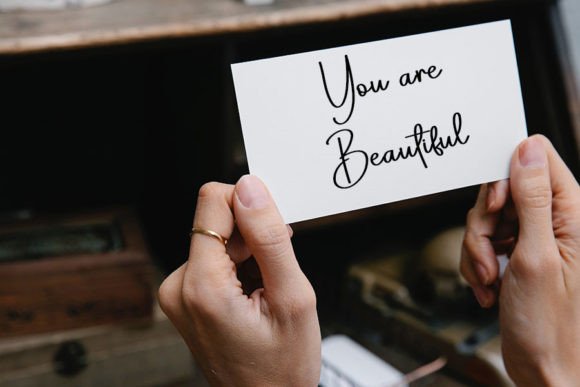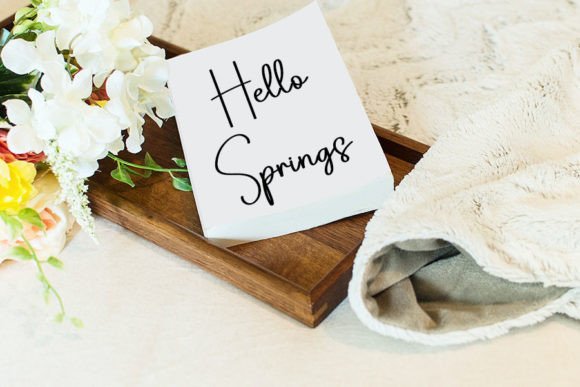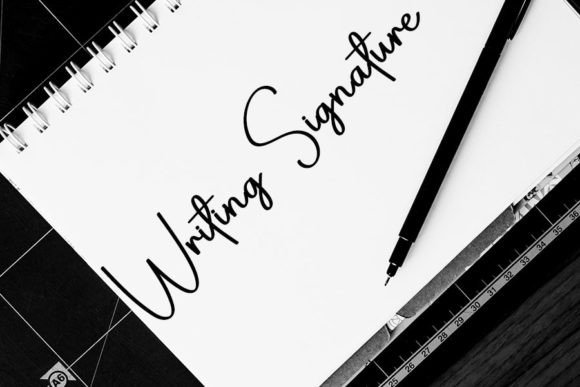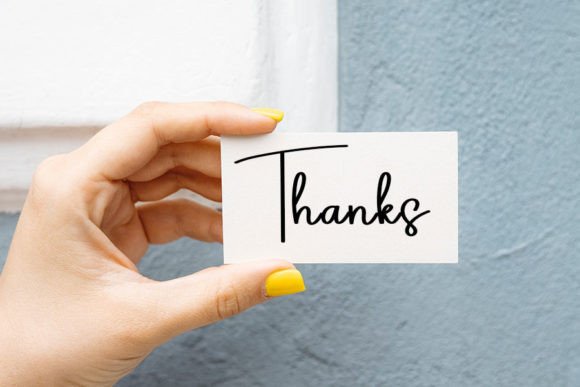
Sublimation Font
About Sublimation Font
SublimationFont is a simple handwritten script that combines friendliness with natural charm. With clean strokes and a casual rhythm, this typeface brings warmth and personality to both personal and professional projects. Because of its versatile design, Sublimation Font is perfect for crafts, greeting cards, invitations, posters, logos, and branding.
A Simple Handwritten Typeface with Friendly Appeal
Handwritten fonts are admired for their individuality, and Sublimation Font highlights this with approachable strokes and neat structure. Its smooth rhythm ensures readability, while its casual curves add personality. Moreover, its natural style adapts seamlessly to both modern and traditional layouts. As a result, this typeface is a dependable option for designers who want creativity with simplicity.
For stationery and personal projects, Sublimation Font is a wonderful choice. For example, it can turn a wedding invitation into a keepsake full of charm. In addition, it works beautifully for thank-you notes, seasonal greetings, and birthday cards. Because of its friendly flow, every design feels heartfelt, stylish, and unique.
A Script Typeface for Logos and Branding
Brands and professionals searching for a versatile handwritten script can rely on Sublimation Font. It adds individuality and warmth to logos, labels, and product packaging. Furthermore, on social media, it brings originality to posts, banners, and promotional designs. When paired with minimalist sans serif fonts, Sublimation Font achieves balance between professionalism and creativity.
Another advantage of Sublimation Font is its adaptability across mediums. In print, it works beautifully on brochures, posters, magazines, and merchandise. Digitally, it elevates websites, blogs, and presentations with authenticity. Since it remains clear in both small and large sizes, this handwritten script is practical for a variety of uses.